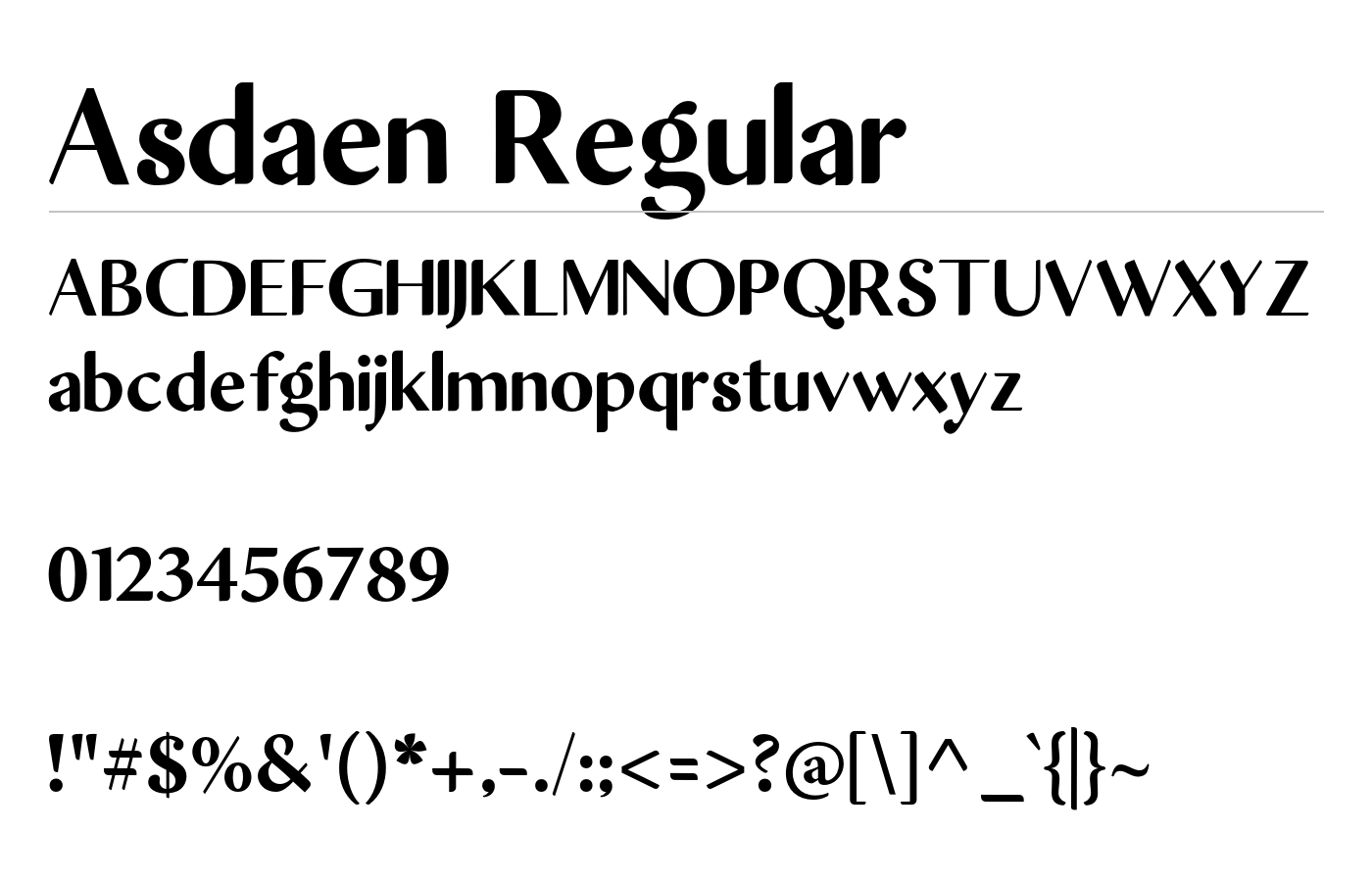
Asdaen Regular is a distinctive serif font blending traditional elegance with modern flair through its high contrast strokes and sharp, stylized serifs. Its upright and carefully crafted letterforms, featuring unique details like double-story 'g' and angled terminals, give it a refined yet contemporary feel ideal for sophisticated branding, editorial design, and striking headlines. This font works well where a blend of classic charm and modern personality is desired, adding a touch of luxury and individuality.
Asdaen Regular Font
About Asdaen Regular Font
| Font family | Asdaen Regular Font |
| Designer | Maryanti |